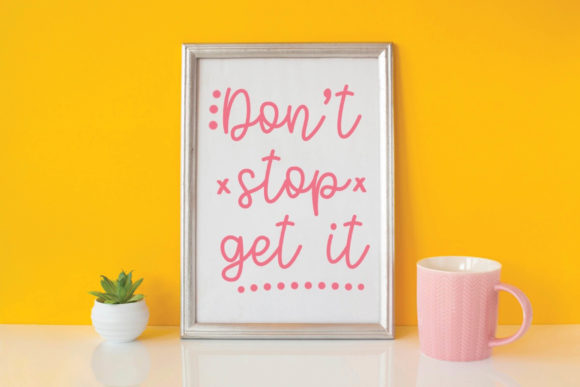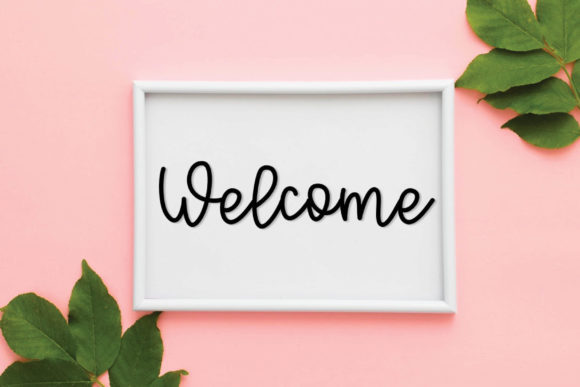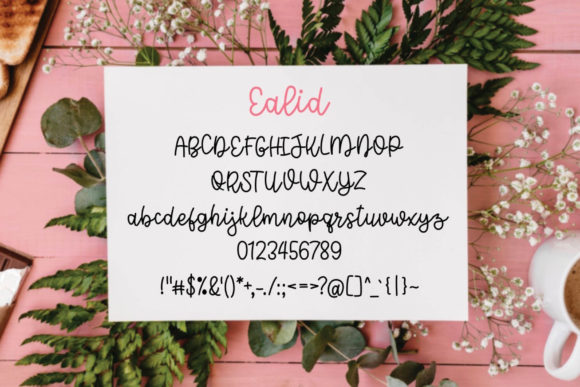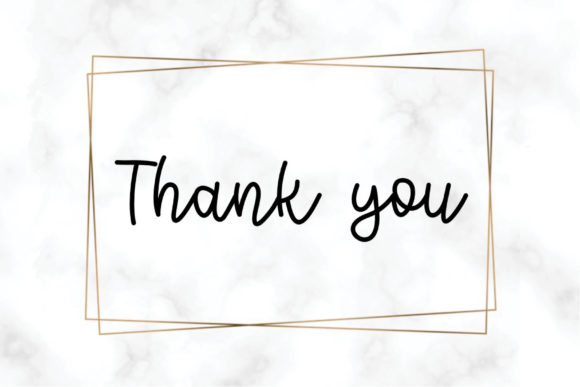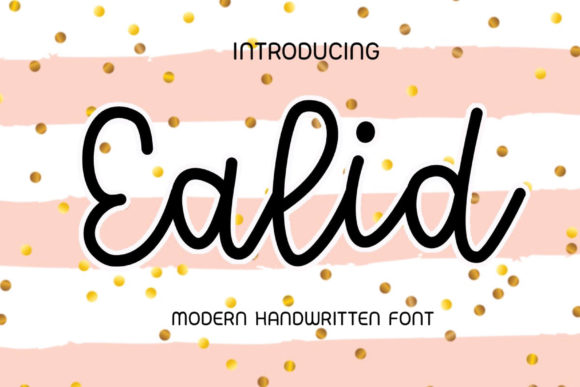
Ealid Font: The Perfect Handwritten Font for Your Design Needs
Are you looking for a font that can add a personal touch to your designs? Look no further than Ealid Font. This beautifully crafted handwritten font is perfect for designers and crafters who want to create stunning visual content. In this article, we’ll take a closer look at Ealid Font and explore its features, benefits, and uses.
What is Ealid Font?
Ealid Font is a great handwritten font that has been carefully handcrafted to become a true favorite among designers. Its casual charm makes it appear wonderfully down-to-earth, readable, and incredibly versatile. Whether you’re looking to create a blog post, social media graphic, or website header, Ealid Font is the perfect choice.
Features of Ealid Font
Ealid Font has several features that make it stand out from other fonts. Some of its key features include:
• Handwritten style: Ealid Font has a beautiful handwritten style that gives it a personal and unique touch.
• Casual charm: The font has a casual charm that makes it perfect for use in informal settings.
• Readability: Ealid Font is highly readable, even at small sizes, making it perfect for use in body text.
• Versatility: The font is incredibly versatile and can be used in a variety of contexts, from busy backgrounds to standalone headlines.
Benefits of Using Ealid Font
There are several benefits to using Ealid Font in your designs. Some of the key benefits include:
• Unique and personal touch: Ealid Font adds a unique and personal touch to your designs, setting them apart from others.
• Easy to read: The font is highly readable, making it perfect for use in body text and other applications where readability is key.
• Flexible: Ealid Font is incredibly flexible and can be used in a variety of contexts, from digital designs to print materials.
• Time-saving: The font is pre-designed, saving you time and effort in creating your own handwritten font from scratch.
Uses of Ealid Font
Ealid Font can be used in a variety of contexts, including:
• Blog posts: Use Ealid Font to add a personal touch to your blog posts and make them more engaging.
• Social media graphics: The font is perfect for use in social media graphics, such as Facebook posts, Instagram captions, and Twitter headers.
• Website headers: Use Ealid Font to create stunning website headers that grab the attention of your visitors.
• Print materials: The font can also be used in print materials, such as brochures, flyers, and posters.
Tips for Using Ealid Font
Here are some tips for using Ealid Font effectively:
• Use it sparingly: Use Ealid Font sparingly to add emphasis and create visual interest.
• Pair it with other fonts: Pair Ealid Font with other fonts to create a unique and visually appealing combination.
• Experiment with colors: Experiment with different colors to find the perfect combination that works with your design.
• Keep it consistent: Use Ealid Font consistently throughout your design to create a cohesive look.
Ealid Font is a beautiful handwritten font that is perfect for designers and crafters who want to add a personal touch to their designs. Its casual charm, readability, and versatility make it a great choice for use in a variety of contexts. By following the tips outlined in this article, you can use Ealid Font effectively and create stunning visual content that grabs the attention of your audience.